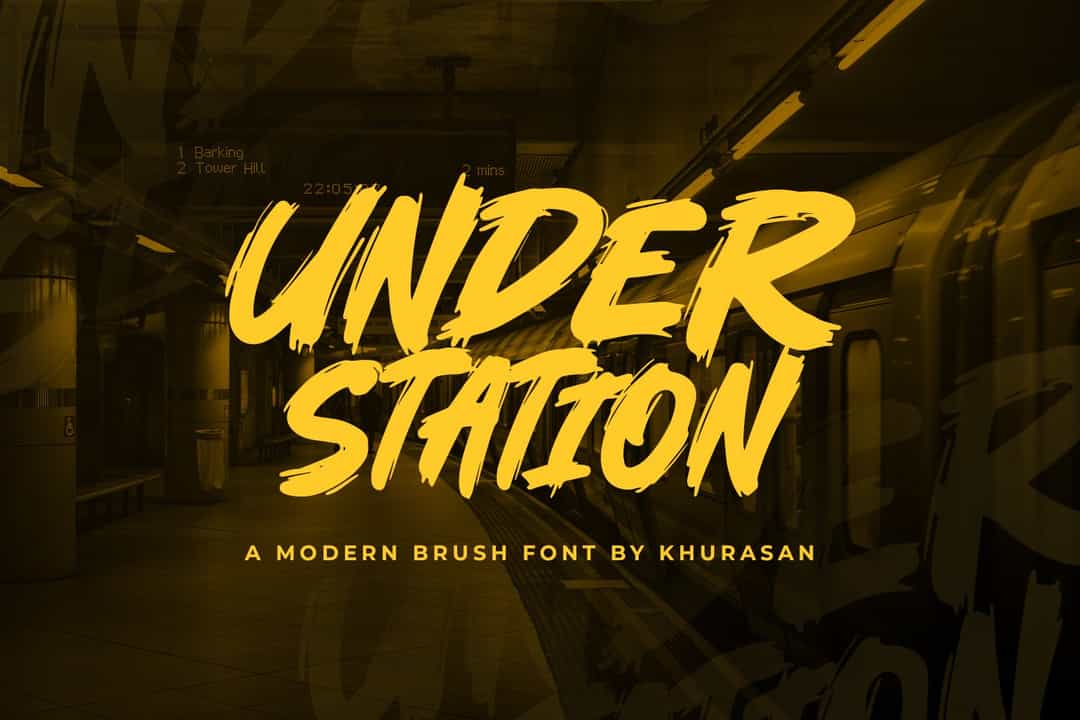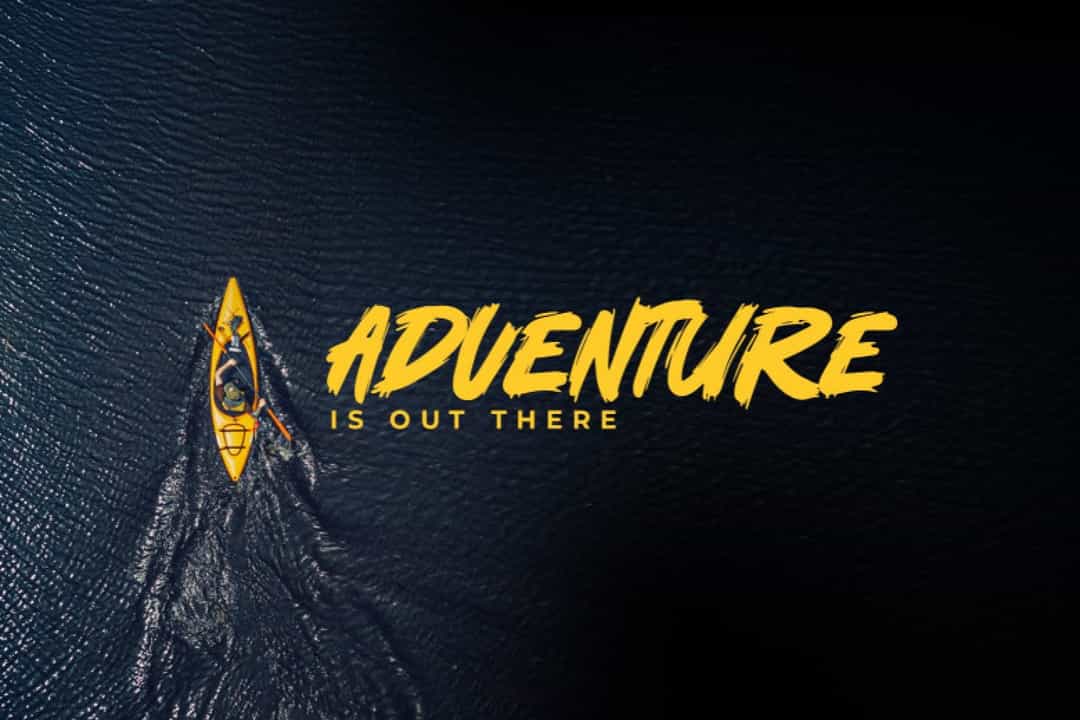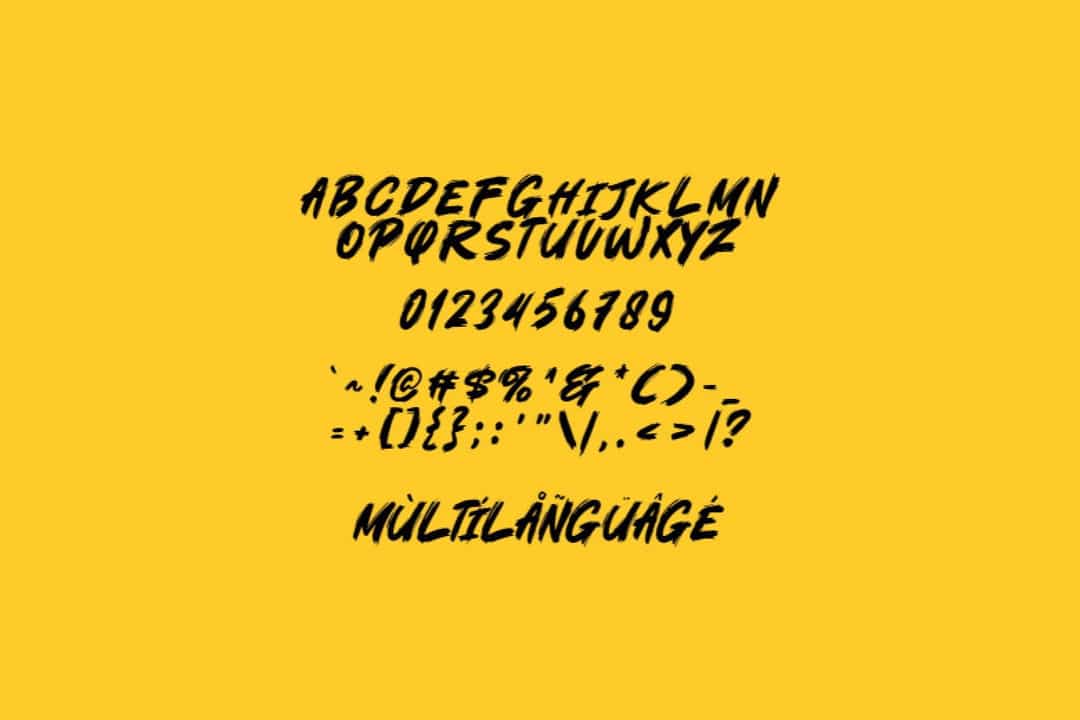
Under Station is a modern, bold brush typeface perfect for logos, posters, books, magazines and banners as well as book covers! Utilize this handwritten font and use it to craft beautiful designs! With its versatility suited for multiple tasks you’re sure to see its distinctive flair come through in your creative concepts – and standout against others!